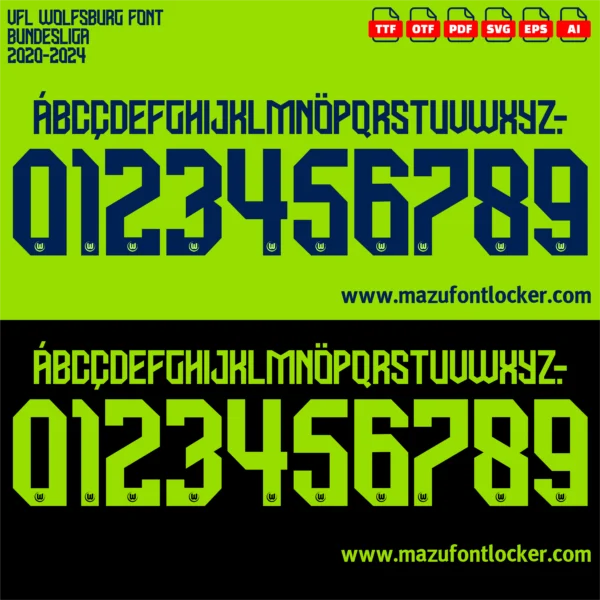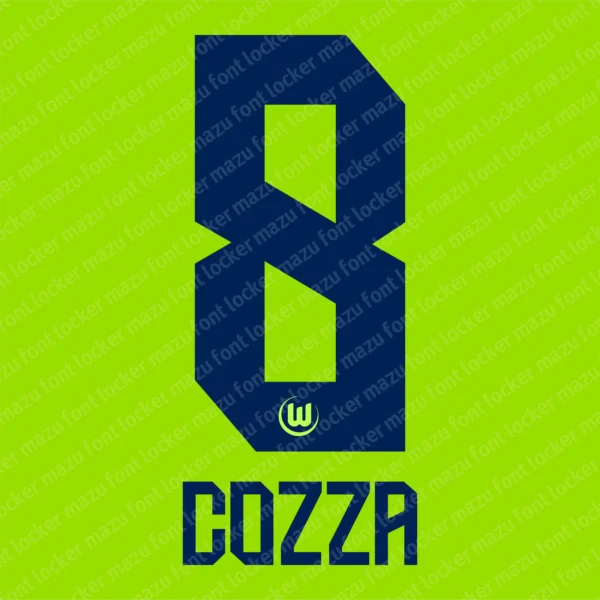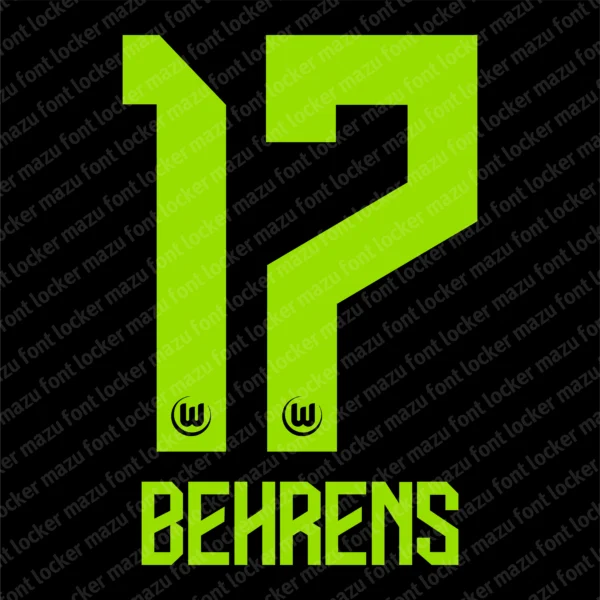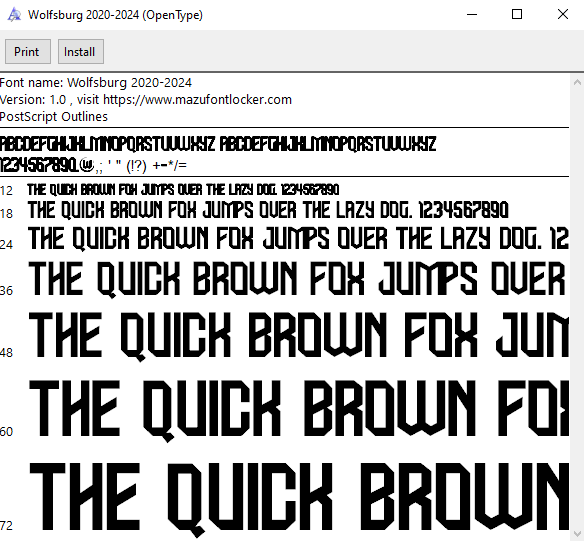
VfL Wolfsburg 2020-2024 Font Vector – Stunning Wolves Masterpiece
This font captures the sharp, precision-crafted lettering inspired by VfL Wolfsburg’s iconic green identity, proud German football heritage, Volkswagen city roots, modern club tradition, and memorable 2020-2024 campaigns — delivering premium authenticity and classic match-day energy for professional jersey mockups, football graphics, sports branding, fan designs, and high-end creative projects.
VfL Wolfsburg 2020-2024 Font Vector – Stunning Wölfe Football Typeface
The VfL Wolfsburg 2020-2024 Font Vector is a premium football typeface designed to recreate the distinctive lettering associated with VfL Wolfsburg during the 2020-2024 era. This high-quality vector font kit captures a bold, modern, clean, and instantly recognizable football typography style inspired by Die Wölfe’s iconic green and white identity and proud German football heritage.
Designed for professional graphic designers, football enthusiasts, jersey collectors, and passionate VfL Wolfsburg supporters, the VfL Wolfsburg 2020-2024 Font Vector delivers an authentic modern football aesthetic for creating realistic jersey mockups, classic football merchandise, social media graphics, match posters, squad designs, banners, and custom fan artwork. Every character has been carefully recreated to reflect the powerful and distinctive visual style associated with one of Germany’s established Bundesliga clubs.
Why Choose VfL Wolfsburg 2020-2024 Font Vector
This font stands out thanks to its precise vector construction and authentic football styling. Every letter and numeral has been meticulously recreated to deliver a distinctive football lettering aesthetic inspired by VfL Wolfsburg’s 2020-2024 period and its celebrated German football heritage.
Whether you’re producing professional football kit templates, modern jersey concepts, Bundesliga graphics, contemporary football posters, squad designs, or eye-catching football content, the VfL Wolfsburg 2020-2024 Font Vector delivers a genuine match-ready appearance inspired by the identity of Die Wölfe.
The lettering featured in the VfL Wolfsburg 2020-2024 Font Vector combines strong geometric lines with balanced football proportions. The result is a premium and highly readable typeface that reflects VfL Wolfsburg’s traditional green and white identity, modern German football heritage, and established status in the Bundesliga.
- Complete uppercase A–Z alphabet and numbers 0–9 in authentic VfL Wolfsburg 2020-2024 inspired style
VfL Wolfsburg 2020-2024 Era
The 2020-2024 period represents an important modern chapter in VfL Wolfsburg’s football history. During this era, Die Wölfe continued competing in Germany’s top-flight Bundesliga while maintaining their recognizable green-and-white identity and strong presence in German football.
The club’s official history records Wolfsburg’s continued development as an established Bundesliga side, including a return to the UEFA Champions League in 2021. The 2023-2024 Bundesliga season also saw VfL Wolfsburg finish 12th in the league standings.
The VfL Wolfsburg 2020-2024 Font Vector is inspired by the distinctive football typography and visual identity associated with the club during this modern period, making it an excellent choice for designers creating contemporary jersey concepts, Bundesliga posters, squad graphics, football artwork, social media designs, and fan-made projects.